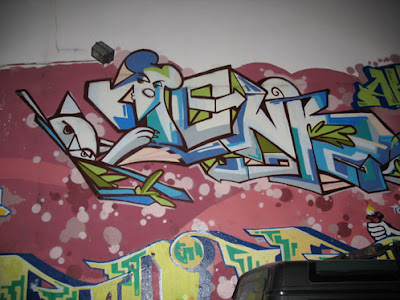
CAT and mouse for your graffiti alphabets to endure. Very much interesting creativity we have here. The alphabets not only modify to get its best performance, But also imaging of some creature, like mouse and cat as we see on the picture. Trace of claws can be visible in the cat part, and the mocking mouse for insurance of cat’s disturbed.
From its color, the graffiti alphabets took very attractive combo. White emboss on green, blue and grey line. Brushing in the right place at alphabets parts in colorful line, taking all the audience enjoys the chasing between the cat and the mouse. The background is also done in nice way for the appealing impact of the alphabets.